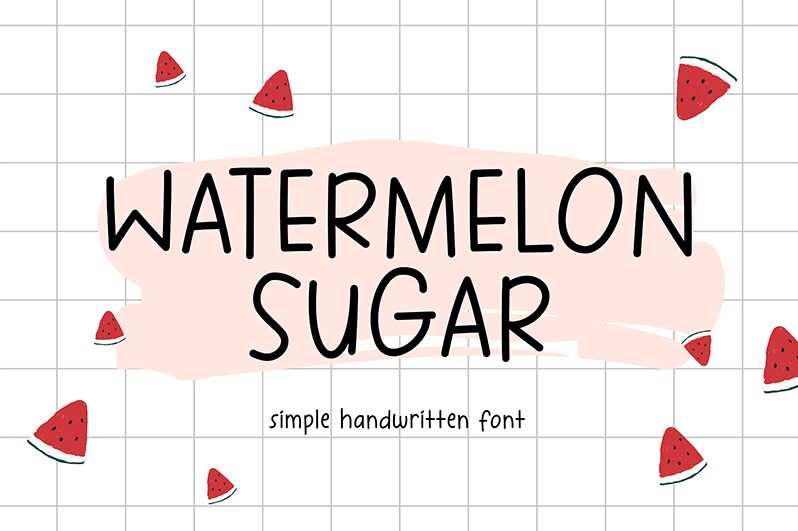
Watermelon Sugar
Dive into the whimsical charm of Watermelon Sugar, a handwritten sans serif font crafted by the talented Etjan Dsg. With its semi-light weight and unassumingly neat cursive appeal, this font is a sweet slice of creativity for your design buffet. Its simplicity is infused with a touch of cuteness, making it an ideal choice for personalizing diary entries, elevating study grams or adding a warm, handwritten touch to digital planners.
Watermelon Sugar's versatility blooms in projects that require a gentle, personal flair – from blog posts to digital bullet journals. It's also perfectly suited for crafting heartfelt invitations or greeting cards that convey sincerity and affection. Embrace the unique blend of casual elegance and playful sophistication that Watermelon Sugar brings to your creative table.